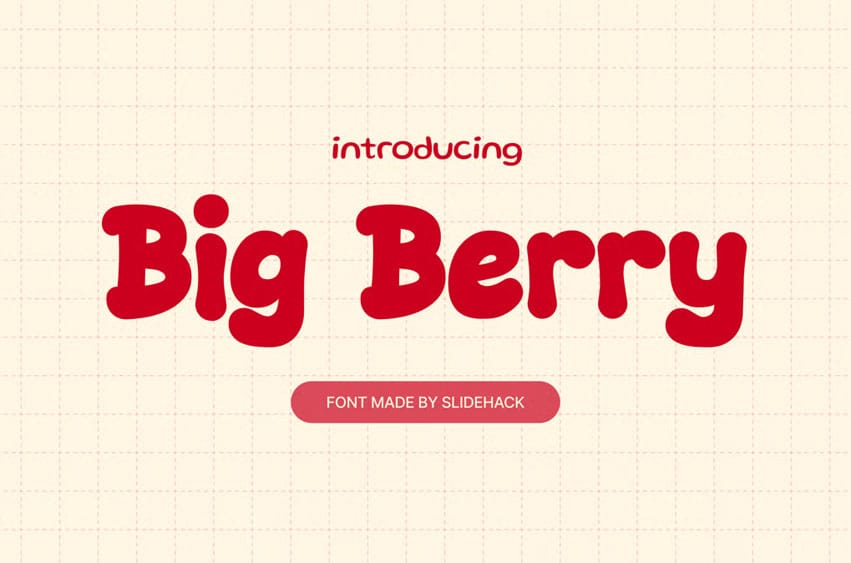
Big Berry Font
Big Berry Font is a fun, bold, and playful display font perfect for kids’ projects, branding, posters, logos, and social media.
Its chunky, rounded style adds joy and creativity to any design. Ideal for eye-catching titles, invitations, and packaging, BigBerry makes your work stand out with a cheerful, modern touch.